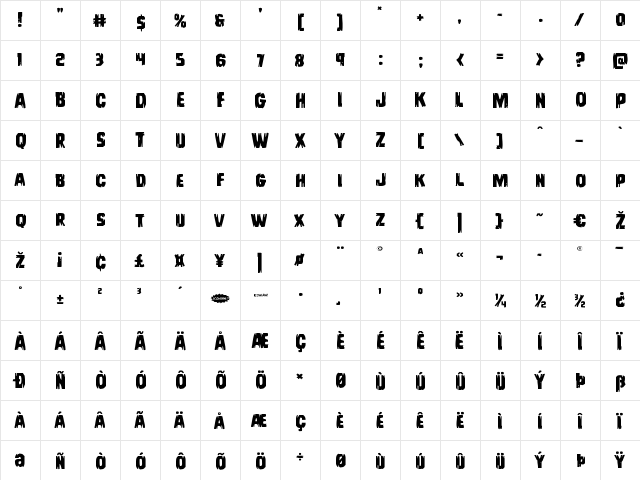
Leatherface Expanded Expanded
Design Context for Leatherface Expanded Typeface
Leatherface Expanded is a composed and adaptable typeface that performs quietly and consistently across a wide range of design contexts.